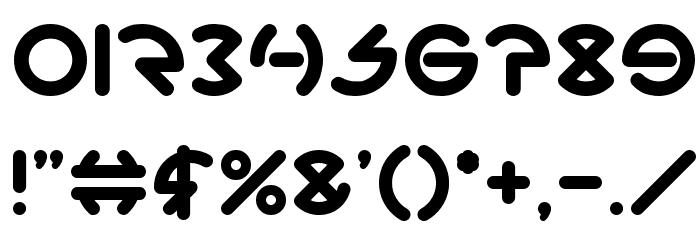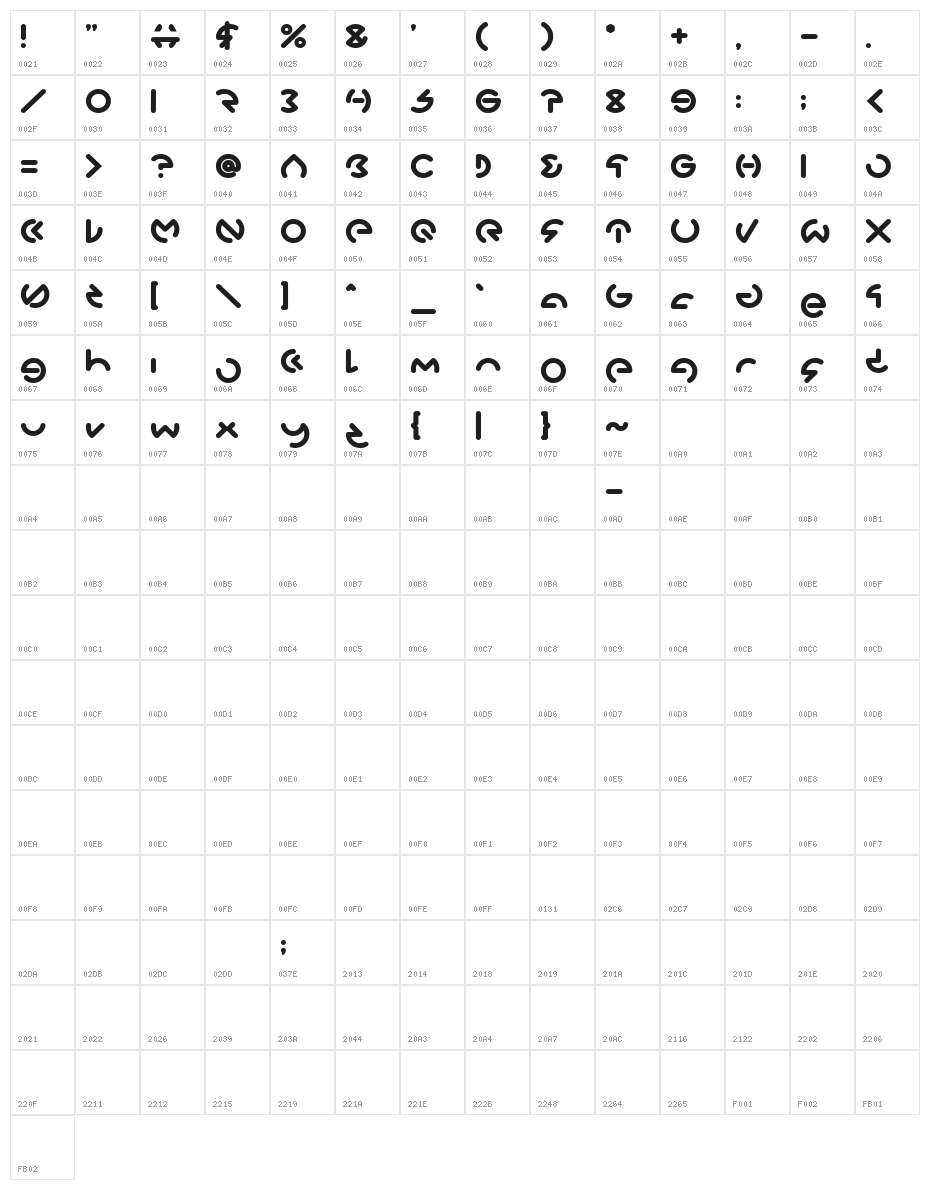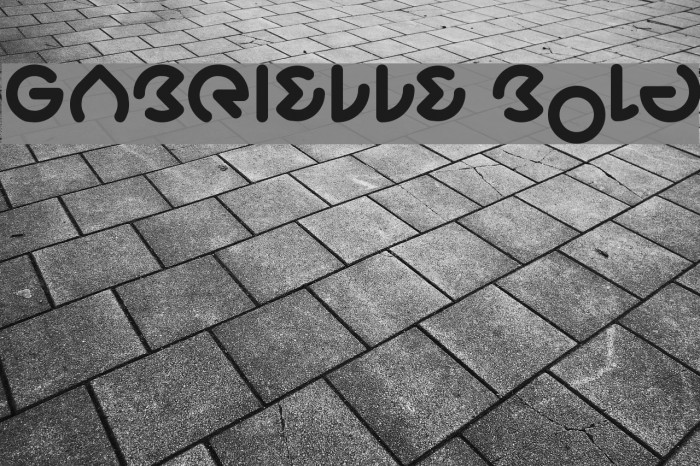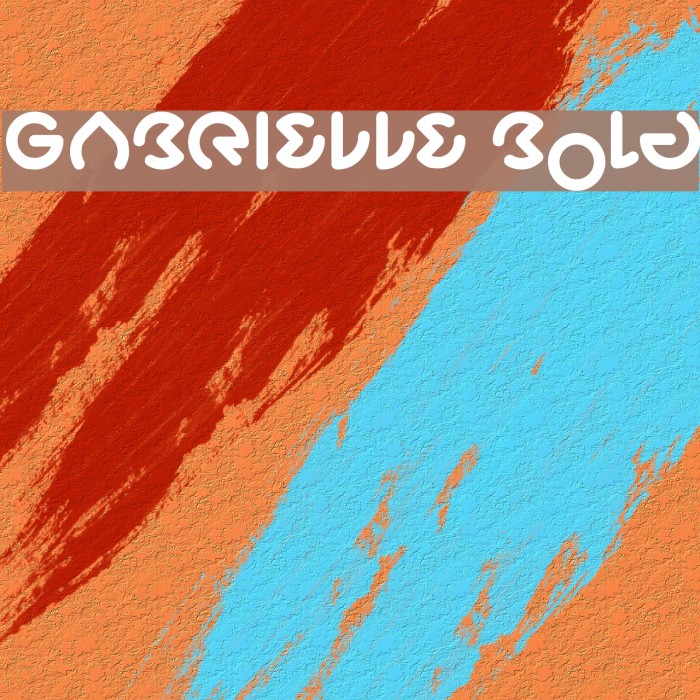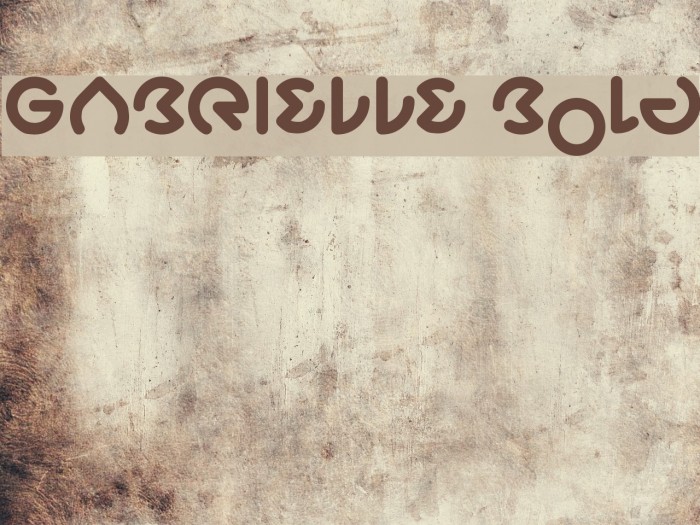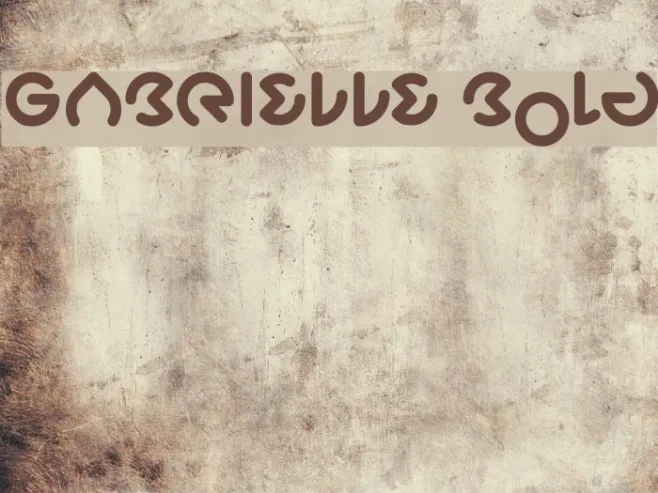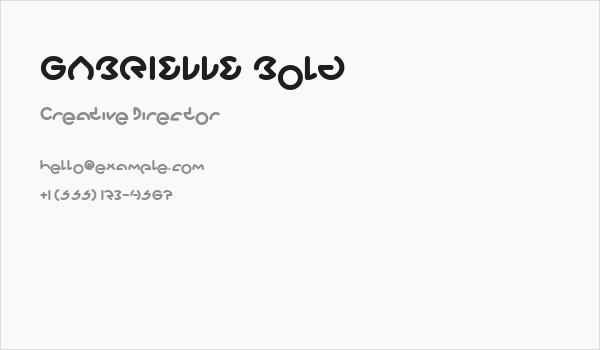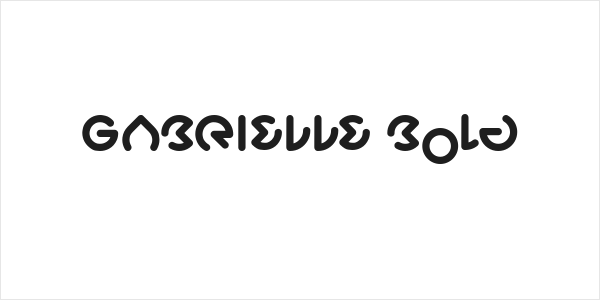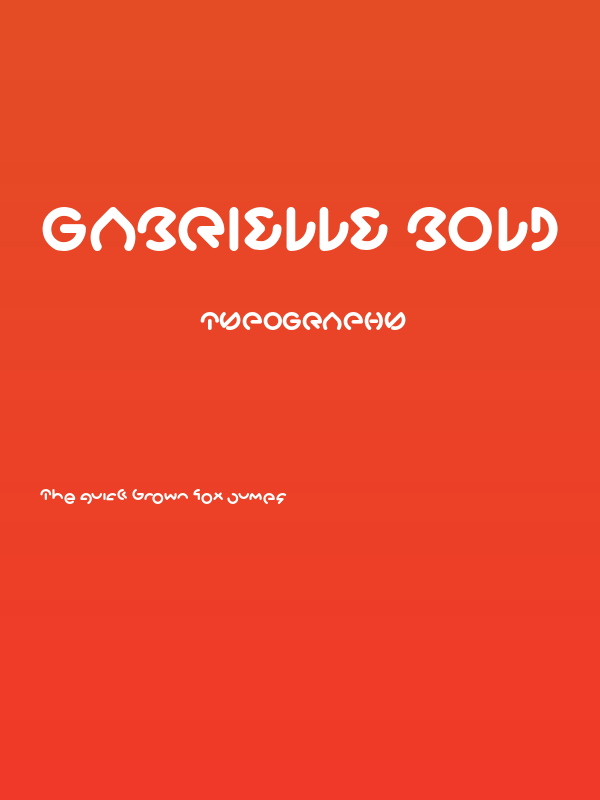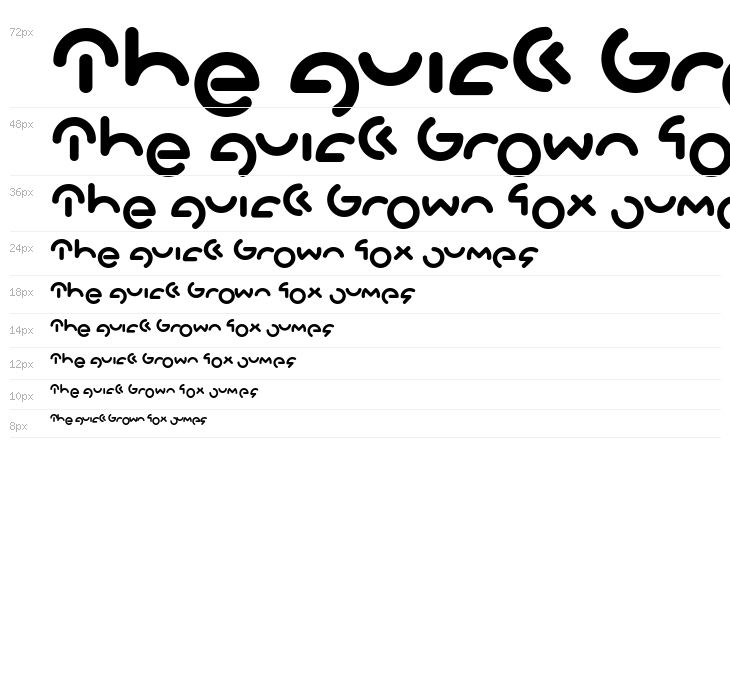
GABRIELLE Bold Font
GABRIELLE Bold Description
This font features a bold, rounded style with a futuristic and geometric appearance. The characters are formed with thick, consistent strokes, creating a sense of uniformity and modernity. The design incorporates smooth curves and closed shapes, giving it a distinctive and eye-catching look. The uppercase and lowercase letters maintain a similar width, enhancing readability while maintaining a unique aesthetic. The numerals and special characters follow the same design principles, ensuring a cohesive visual identity across all elements.
Proposed ProjectsIdeal for technology branding, sci-fi themed projects, modern posters, and digital interfaces.